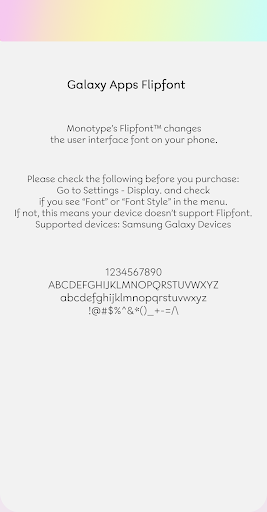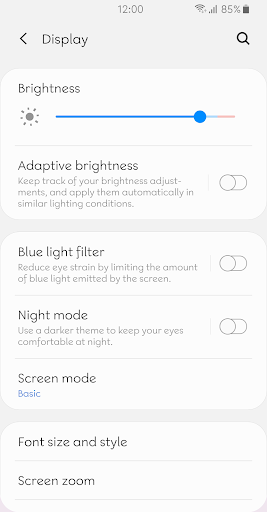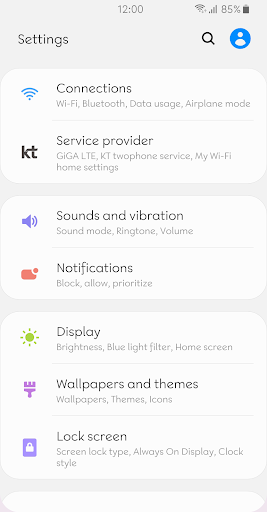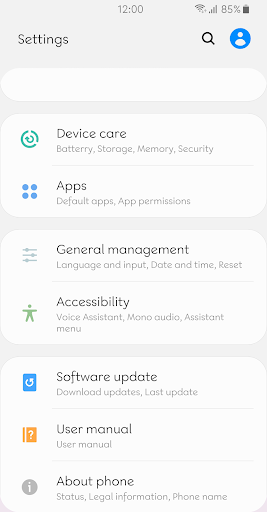
RtCaramelBonbon
RtCaramelBonbon is a geometric sans-serif typeface with a pure and bright impression. Make your device charming by applying this font. Enjoy!